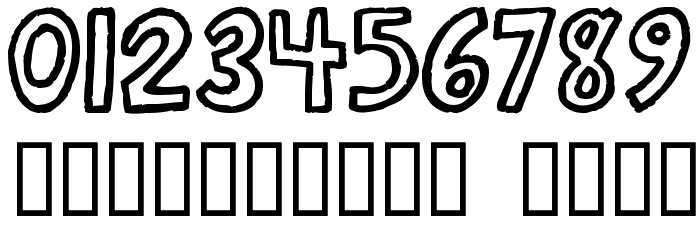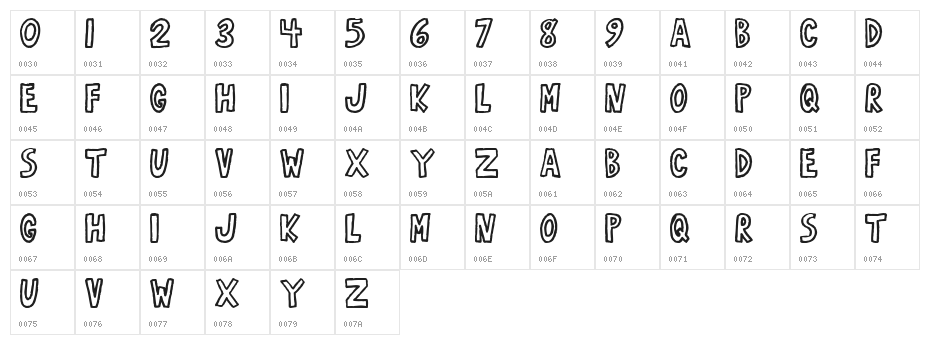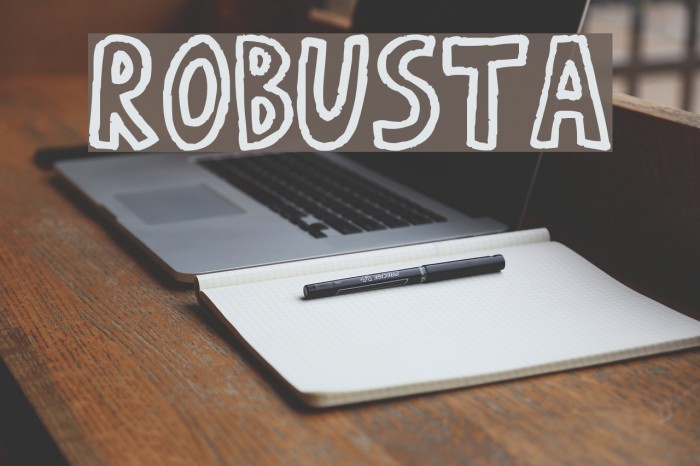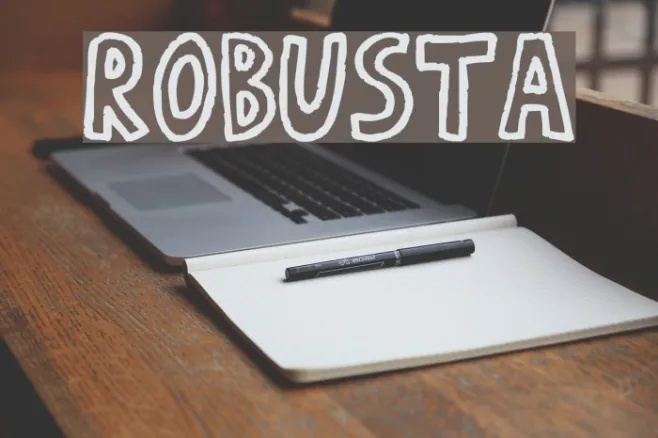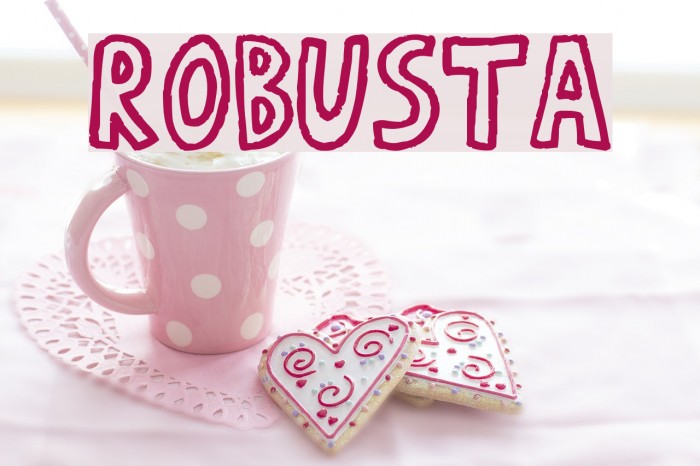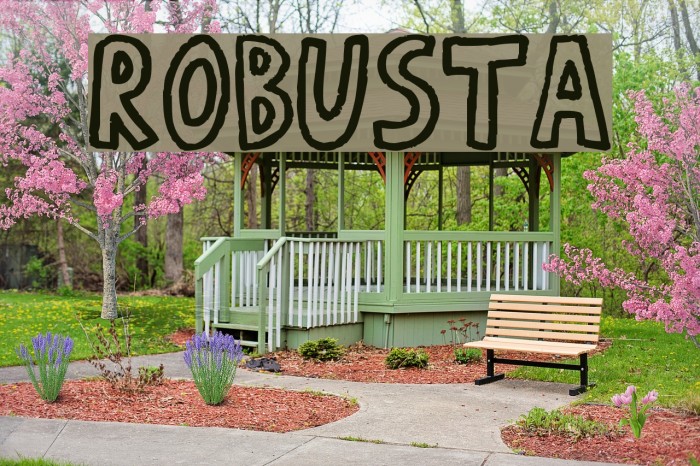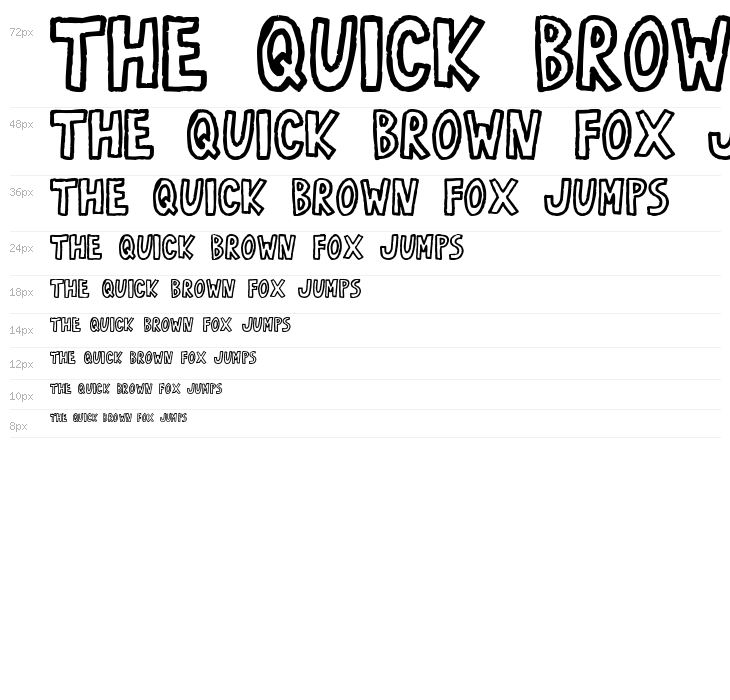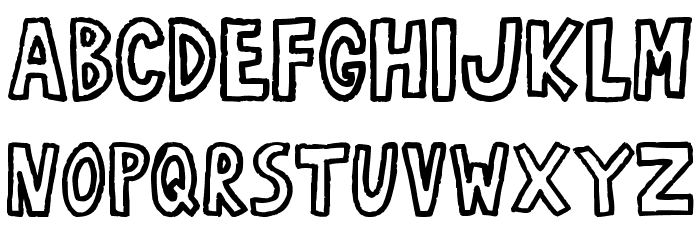
RobustA Font
RobustA Description
This font features a bold, hand-drawn style with a playful and energetic appearance. The characters are outlined with a thick, uneven stroke that gives them a cartoonish and informal look. The letters are slightly irregular, adding to the casual and whimsical feel. The numbers and special characters maintain the same lively style, making the font suitable for creative and fun projects. The overall design is eye-catching and full of personality, making it ideal for headlines or titles that need to stand out.
| Overall Style | Playful, Cartoonish |
| Proposed Projects | Perfect for children's books, comic strips, playful branding, and event posters. |